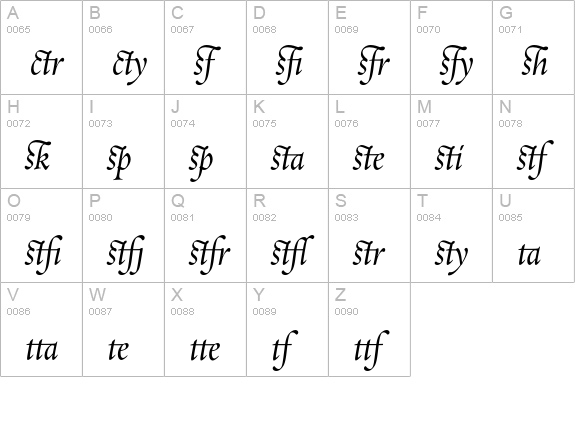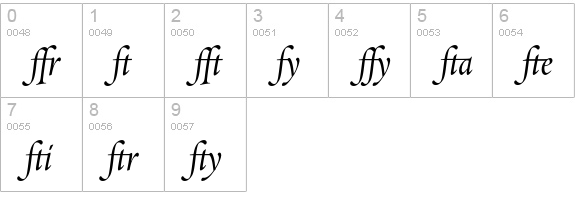
RequiemDisplay-HTF-ItalicLigs Font Details
RequiemDisplay-HTF-ItalicLigs font is a stunning typeface that exudes elegance and sophistication. Its intricate design, with delicate ligatures and graceful curves, adds a touch of refinement to any project. This font is perfect for adding a touch of class to invitations, branding materials, editorial designs, and more. With its unique italic ligatures, RequiemDisplay-HTF-ItalicLigs font brings a sense of fluidity and movement to your text. The ligatures seamlessly connect letters, creating a beautiful and harmonious flow of words. It is a font that truly stands out and adds a touch of distinction to any design. What makes RequiemDisplay-HTF-ItalicLigs font even more appealing is that it is available for free. Yes, you read that right – this exquisite font can be downloaded for free at FontsMarket.com. Whether you are a professional designer or someone who simply appreciates beautiful typography, you can get your hands on this font without spending a dime. The versatility of RequiemDisplay-HTF-ItalicLigs font is another reason to love it. It can be used for both headlines and body text, adapting effortlessly to various design projects. Its legibility ensures that your message will be conveyed clearly and effectively, while its unique aesthetic adds a touch of sophistication. So, if you are looking to elevate your designs and make a lasting impression, look no further than RequiemDisplay-HTF-ItalicLigs font. Download it for free at FontsMarket.com and let its beauty inspire your creativity.